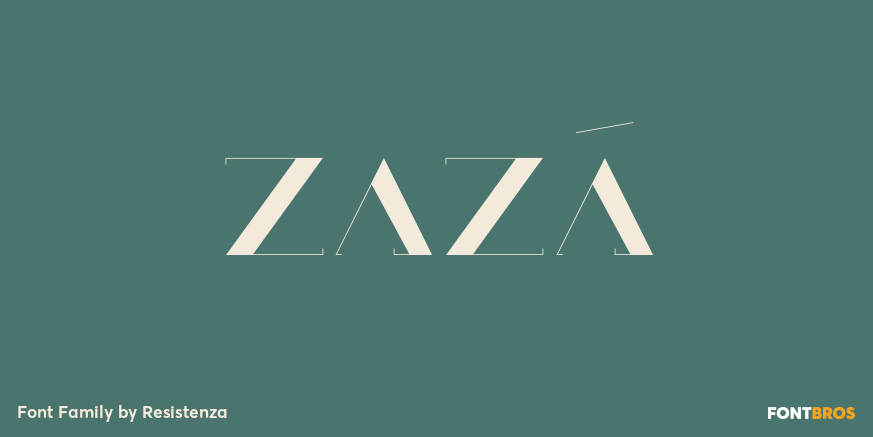
HomeFont BrosArt Deco (1910-1935)Zazá Art Deco (1910-1935)Wacky Zazá FacebookXPinterestWhatsApp 1 of 1 About Zazá Fashionable and cool, all uppercase Zaz  DOWNLOAD ON FONT BROSThis font is sold and delivered by Font Bros. Font Canyon may earn a commission if you buy through this link. People also explored Girls Hairy Font Butterfly Font Amazing Strength Font Innovative Mothers Font Rinse Font Naturale Font Window Font Floral Monogram Font Astentish Font 649 0 TagsZazáZazá Font Previous articleDolce Caffé 3dNext articleZitz LEAVE A REPLY Cancel reply Comment: Please enter your comment! Name:* Please enter your name here Email:* You have entered an incorrect email address! Please enter your email address here Website: Save my name, email, and website in this browser for the next time I comment. Personal Use Free Fontmageddon Personal Use Free Read more about this font Fifteenth Century Personal Use Free Read more about this font Romantic February Personal Use Free Read more about this font Better Together Duo Personal Use Free Read more about this font BLOG Elegant Wedding Invitation Fonts – Handwritten & Script Fonts Elegant Wedding Invitation Fonts Your wedding day is one of the most important moments of your life, and every detail matters—including your invitation design. Our... Transform Your Website: Elevate Your Typography with 7 Best Web Font Generators Best Fonts for YouTube Videos: Make Your Thumbnails Stand Out Fonts That Capture the Spirit of New York City